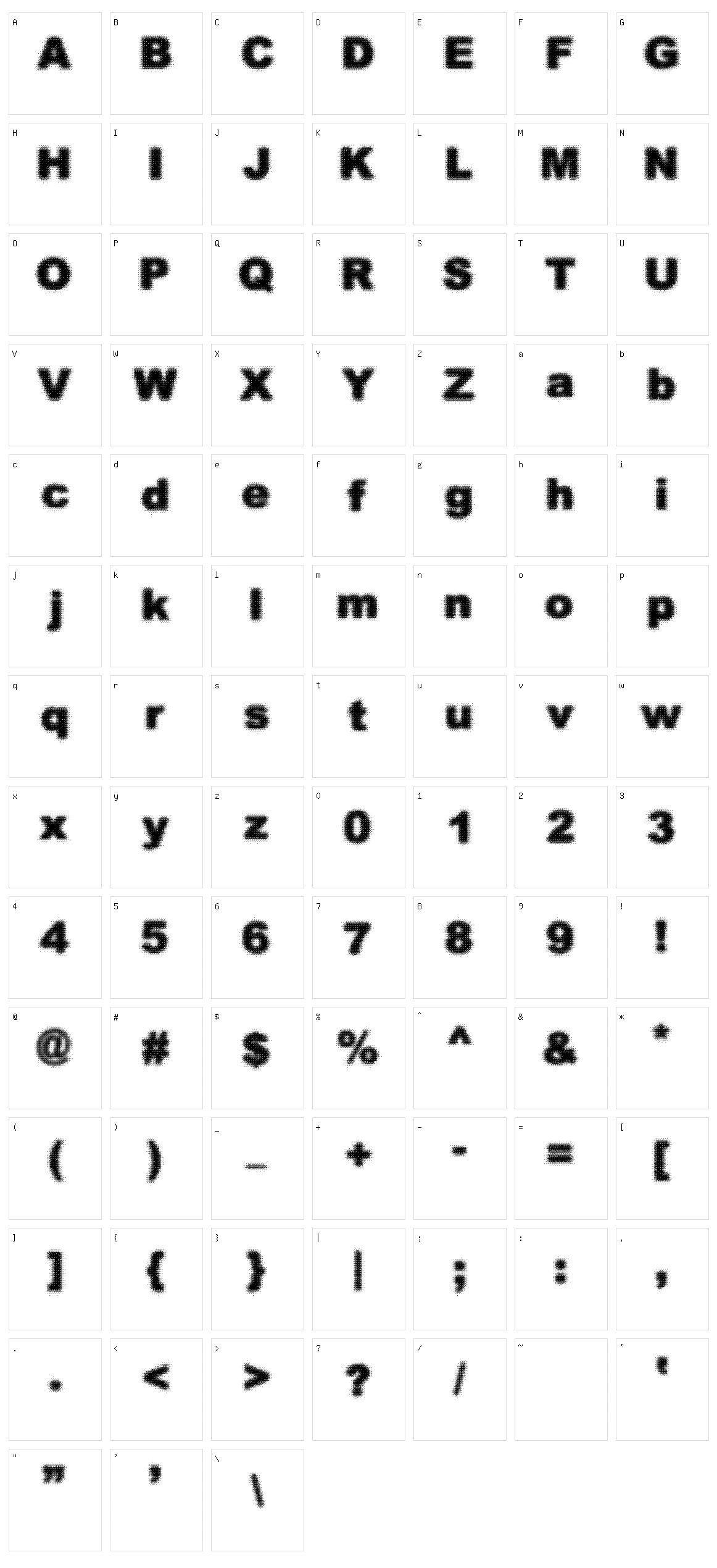
The free font Static Buzz is carefully designed by Anthony Robinson, showcasing a thoughtful balance of creativity and usability and falls under the Distorted font style. When you download the ZIP file, it contains only 331.8 KB of font files, making it lightweight and quick to download. Please review the license details below to understand permitted usage and distribution rights. If license information is not available, we recommend using this font for personal projects only or contacting the author directly for commercial usage permissions.